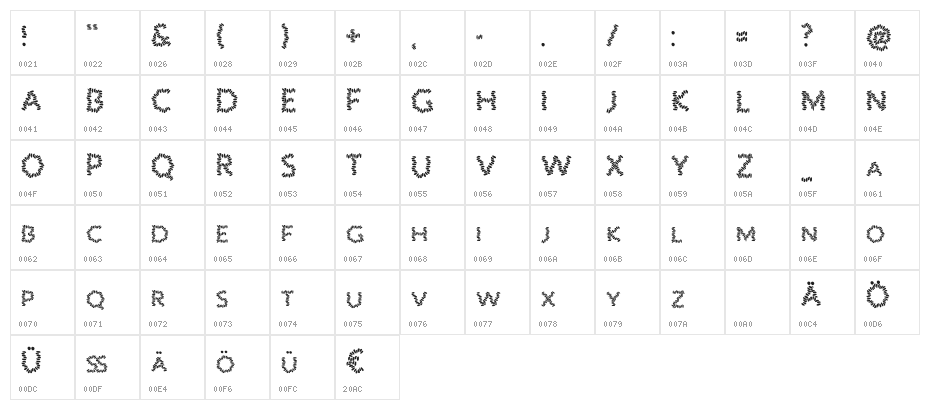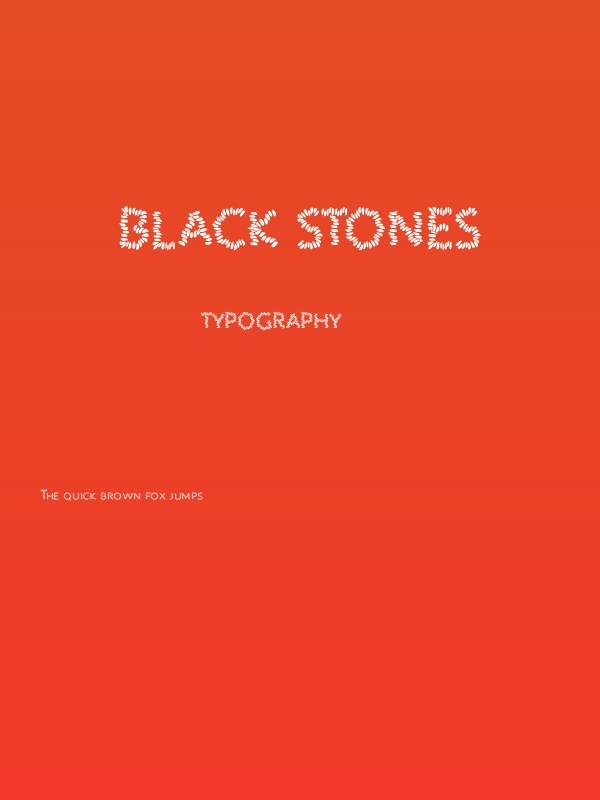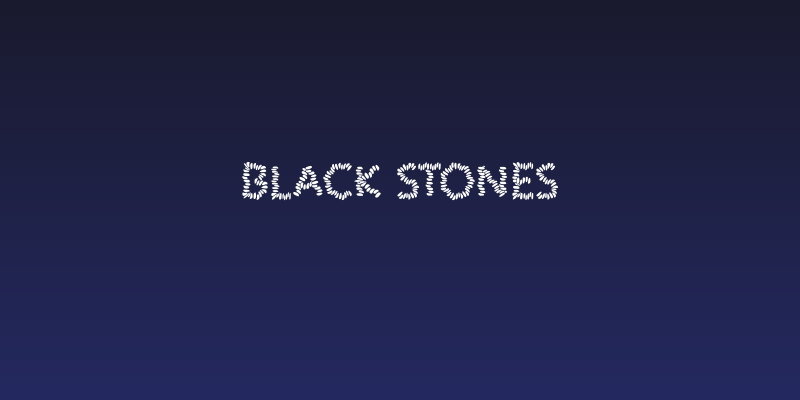
BLACK STONES Font
BLACK STONES Description
This font features a unique and playful design where each character is composed of small, stone-like shapes. The letters are bold and eye-catching, making them ideal for decorative purposes. The uppercase and lowercase letters maintain a consistent style, with the stones forming the outlines of each character. The numbers and special characters follow the same design principle, ensuring a cohesive look across all elements. This font's distinctive appearance makes it stand out, offering a creative and artistic vibe.
| Proposed Projects | Ideal for creative projects such as posters, logos, and branding materials that require a unique and artistic touch. |